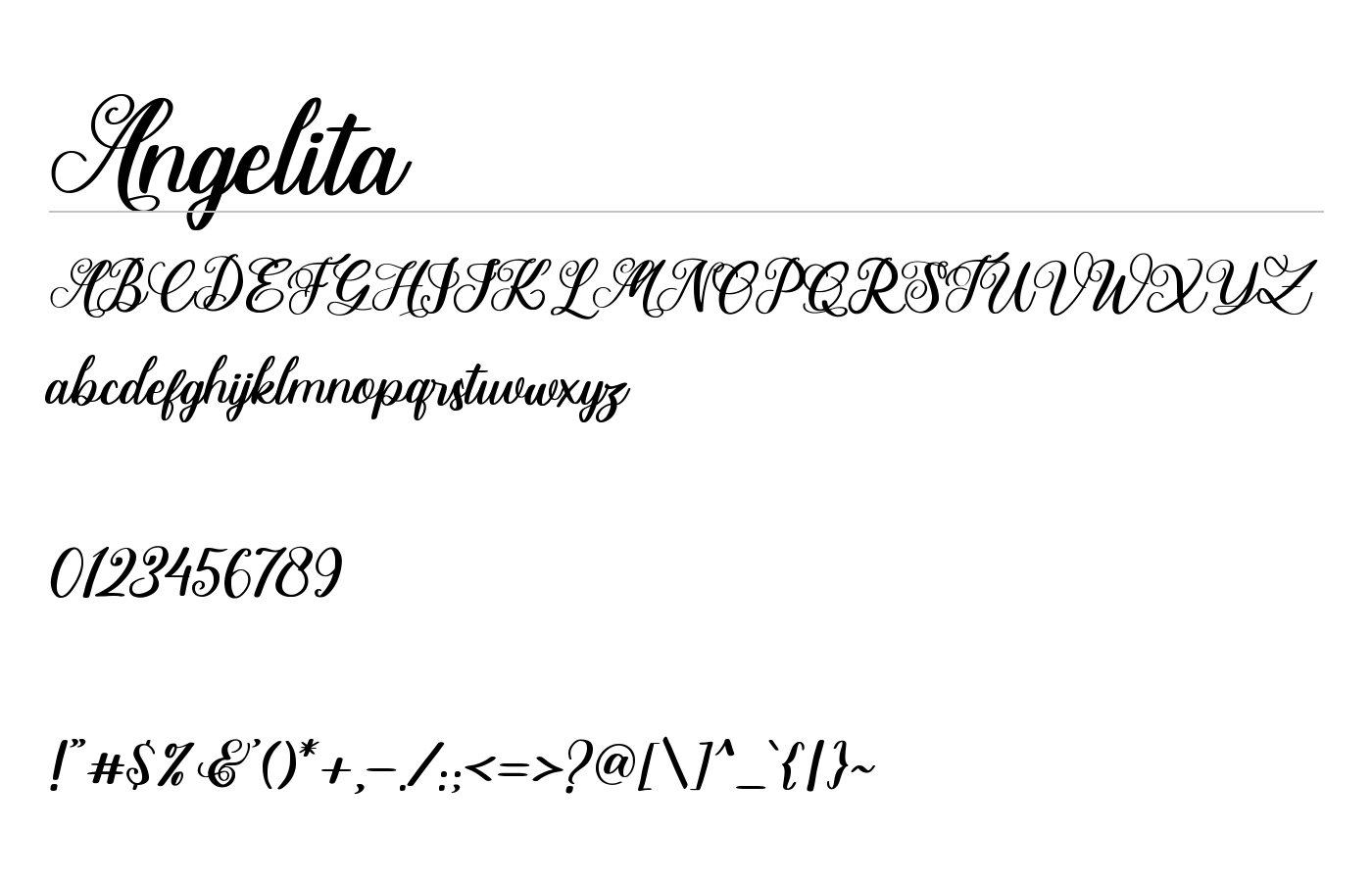
Angelita is an elegant, decorative script font with a flowing, handwritten style that features strikingly ornate uppercase letters and smooth, connected lowercase forms. Its medium stroke contrast and graceful curves convey a refined, sophisticated charm, making it perfect for invitations, logos, and branding that seek a romantic or vintage feel. This font works beautifully in headline or display use where its detailed letterforms can be fully appreciated.
Angelita Font
About Angelita Font